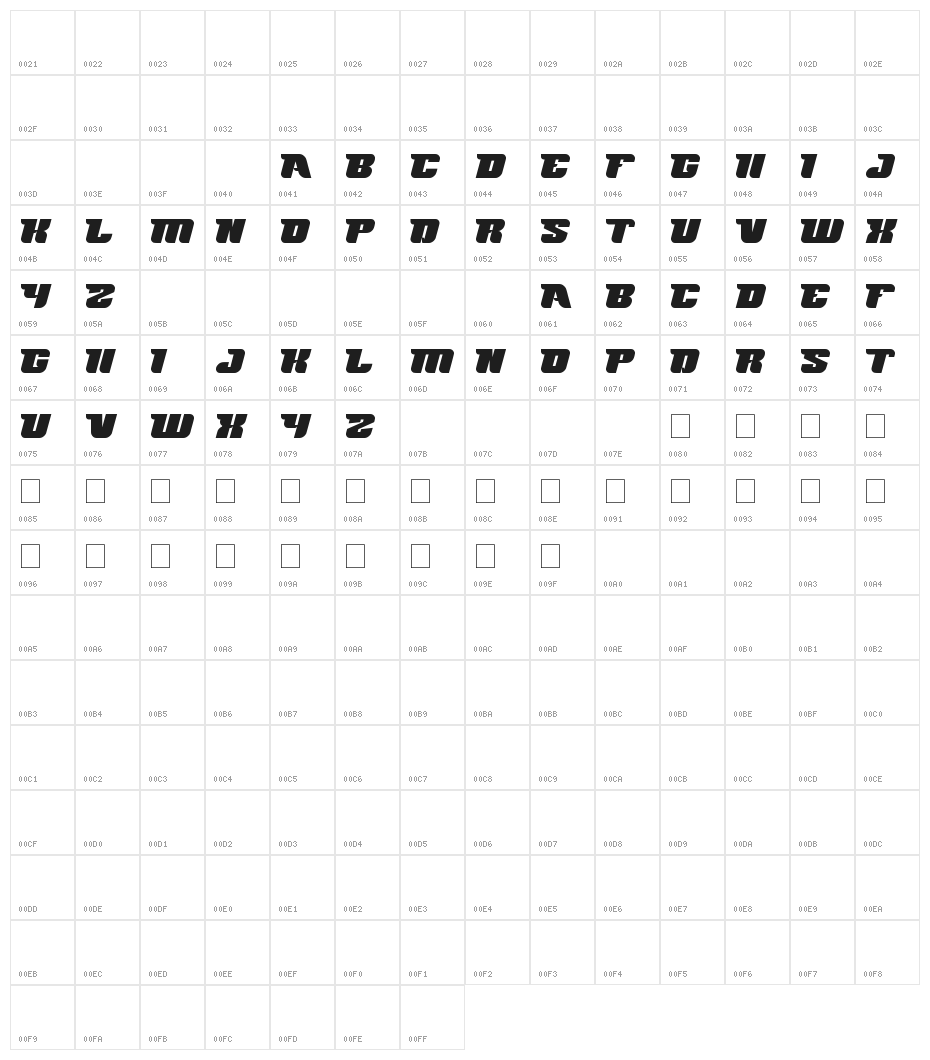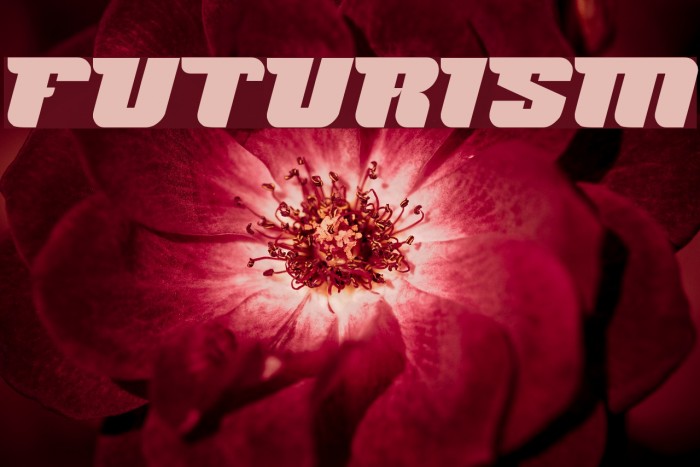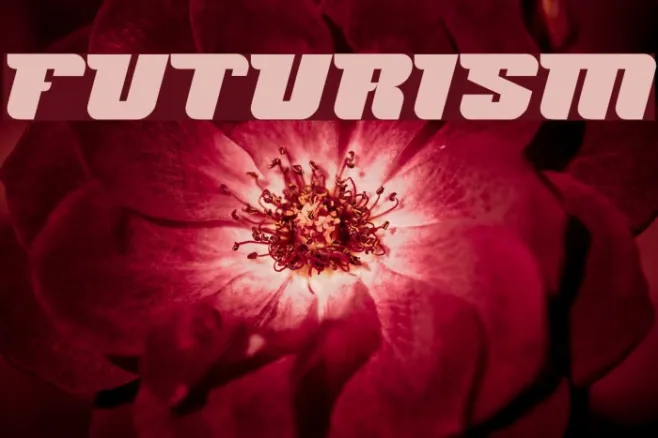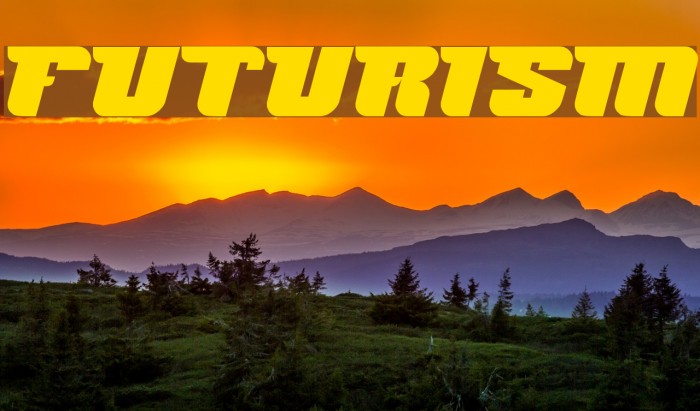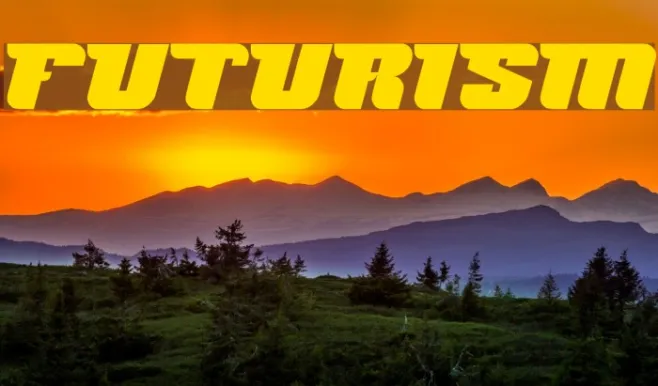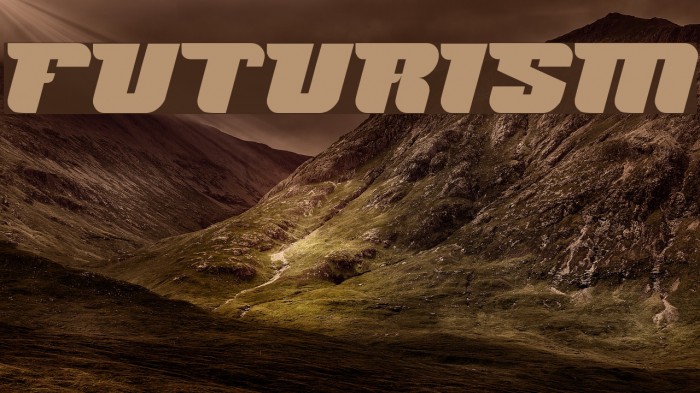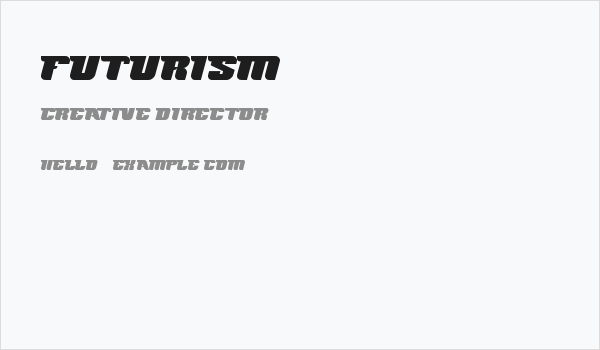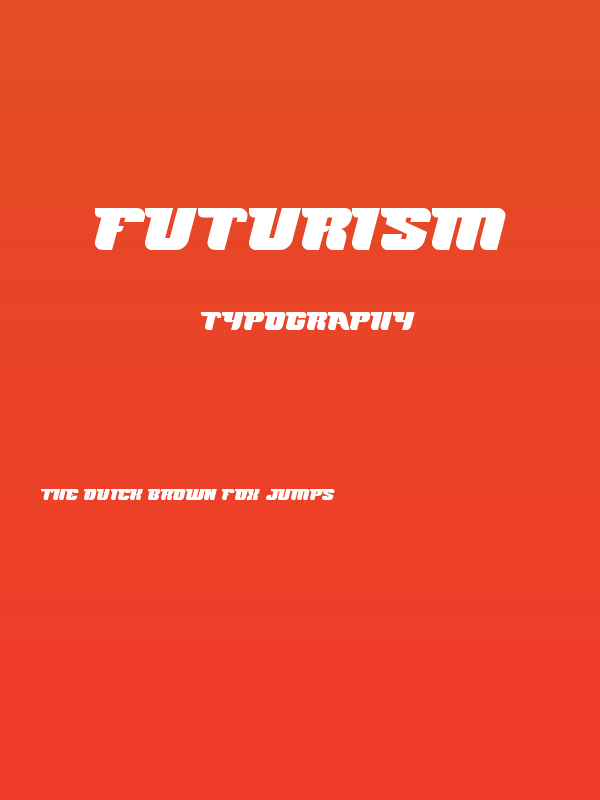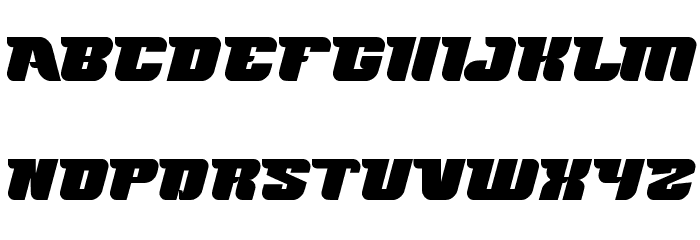
FUTURISM Font
FUTURISM Description
This font features a bold, futuristic design with strong geometric shapes and a dynamic slant. The characters are wide and have a distinct, blocky appearance, giving them a powerful and modern look. The strokes are consistent in thickness, providing a uniform and cohesive style. The font is highly legible and makes a strong visual impact, suitable for attention-grabbing headlines and designs.
| Proposed Projects | Ideal for sci-fi themed projects, technology branding, video game titles, and modern posters. |